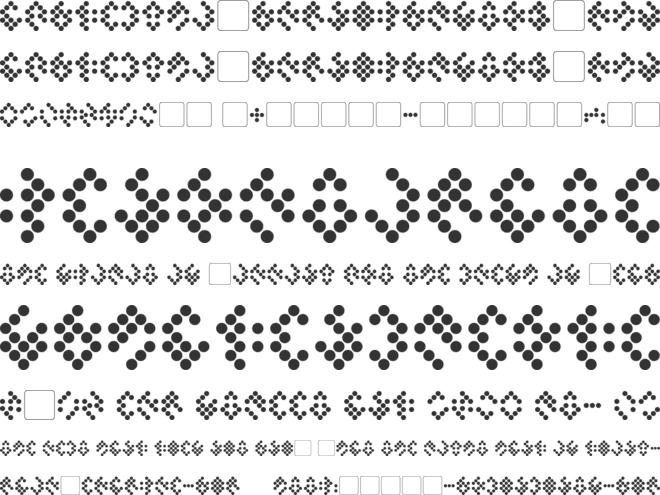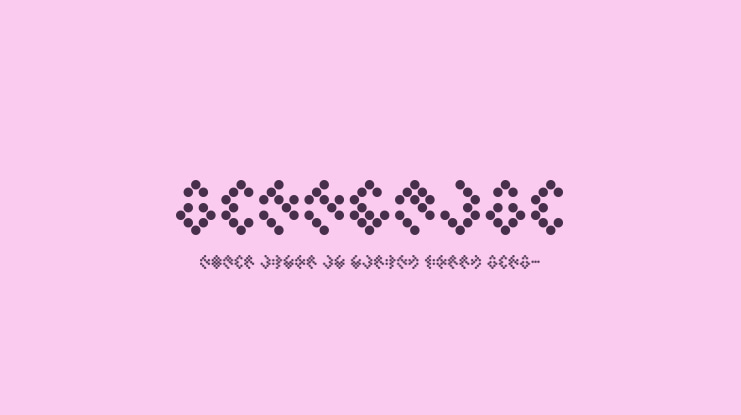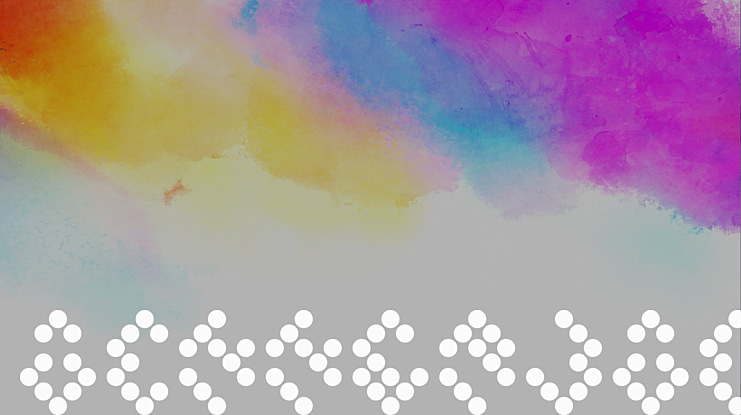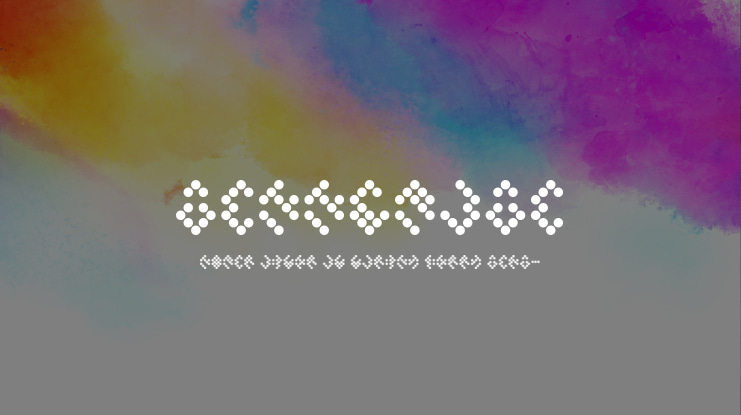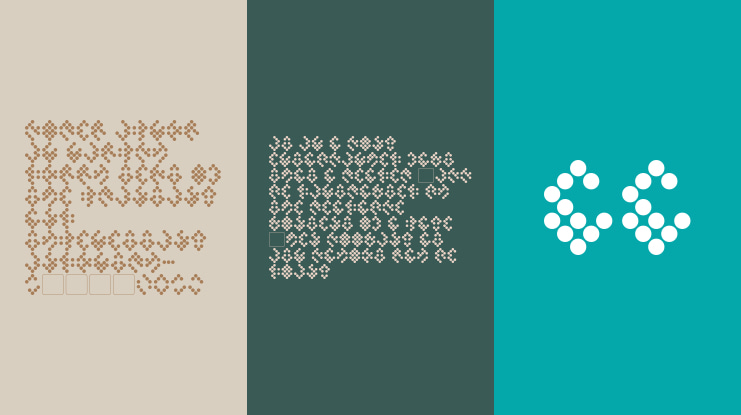
Tellarite Font
Neale Davidson
Tellarite is an unusual dot-based (quasi-braille looking) face based on the Tellarite language glyphs found in the Star Trek: Enterprise television series from Paramount/CBS Pictures. Includes all canon characters mapped to their appropriate English equivalents.